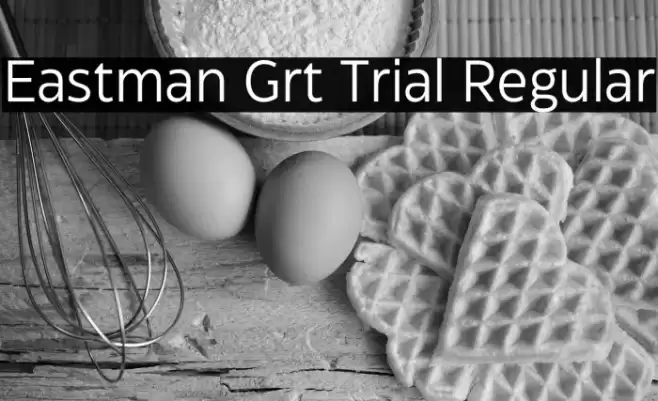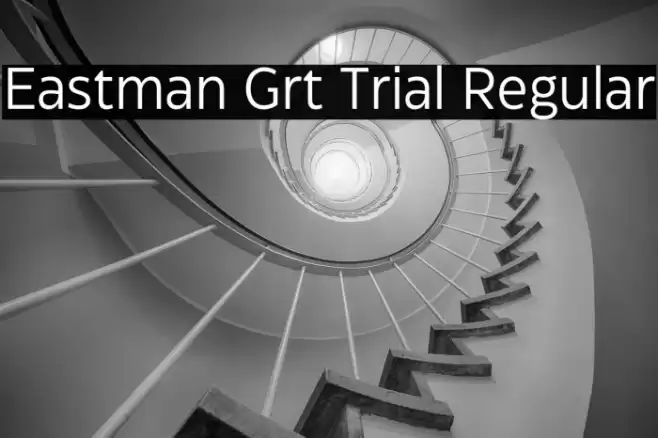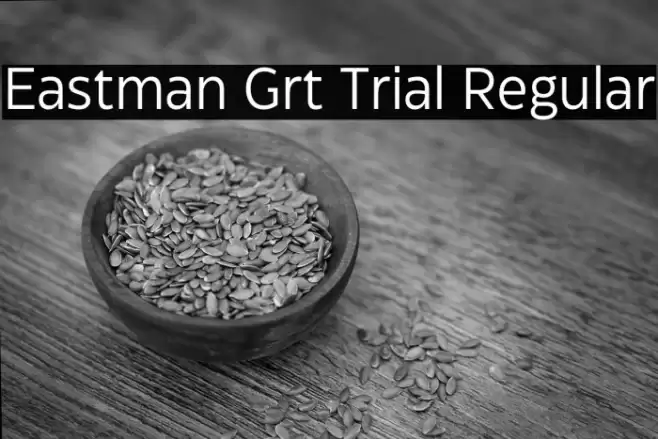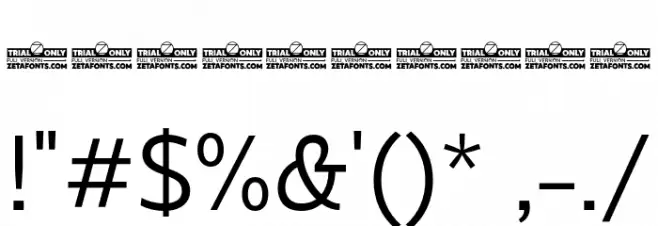
Eastman Grt Trial Regular Font
Eastman Grt Trial Regular Description
This font features a clean and modern sans-serif design, characterized by its geometric shapes and uniform stroke widths. The uppercase letters are bold and assertive, while the lowercase letters maintain a consistent and harmonious appearance. The numerals are straightforward and easy to read, complementing the overall minimalist style. Special characters are well-integrated, maintaining the font's sleek and professional look. This typeface is versatile, suitable for both digital and print media, ensuring readability across various sizes and formats.
A modern, geometric sans-serif font with clean lines and uniform strokes from Uncategorized fonts.